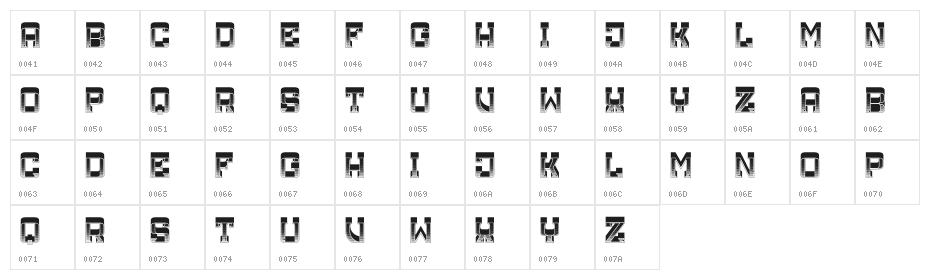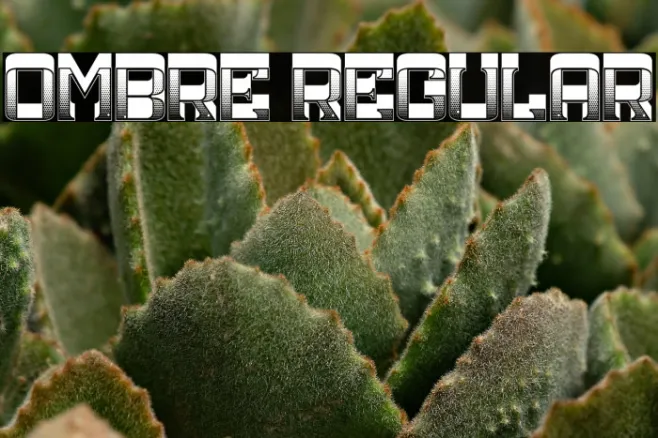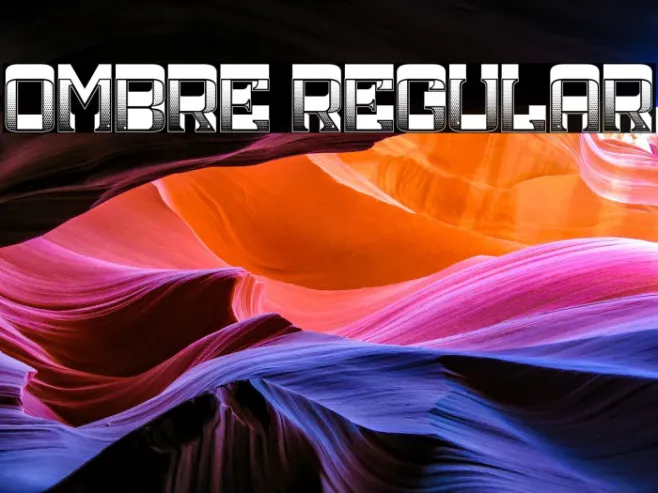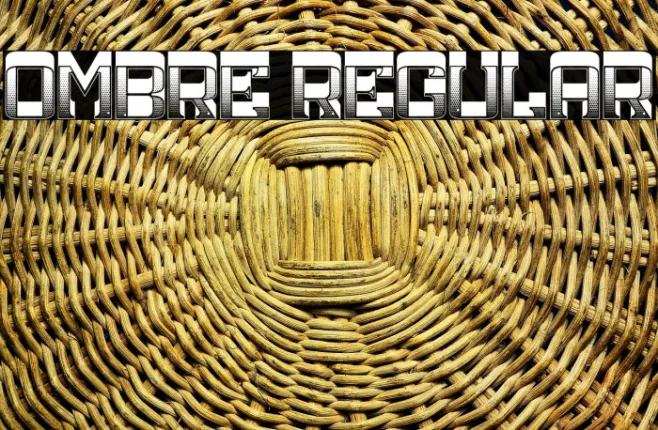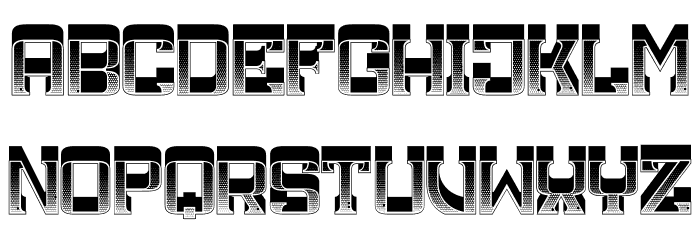
Ombre Regular Font
Ombre Regular Description
This font features a bold and striking design with a unique ombre effect that transitions from solid black to a dotted pattern. The uppercase letters are robust and wide, giving a sense of strength and modernity. The geometric shapes and sharp edges add a futuristic touch, making it stand out in any design. The font's style is consistent across all characters, providing a cohesive look. The dotted gradient effect adds depth and dimension, making it suitable for eye-catching headlines and titles.